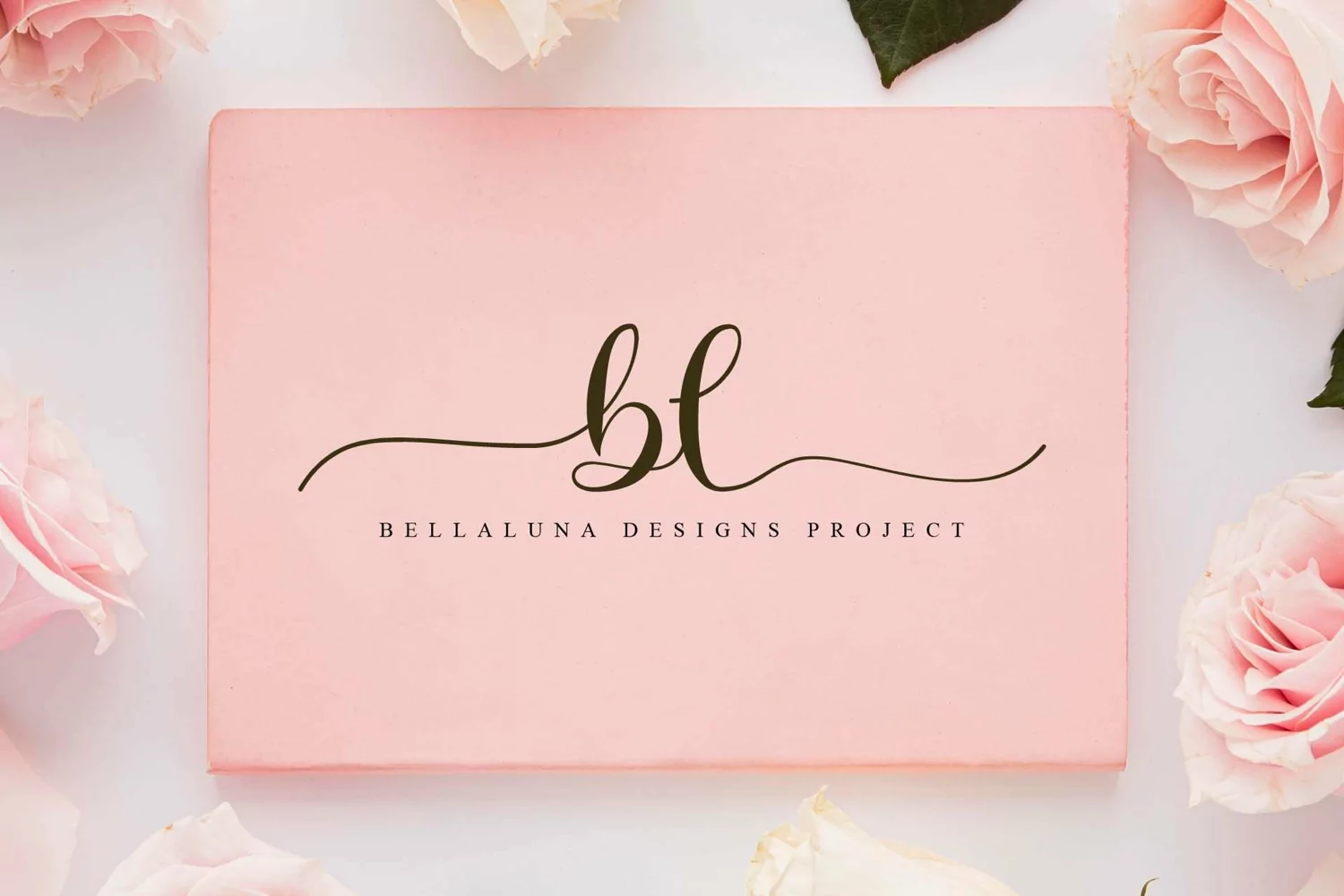
Proudly present a sweet calligraphy typeface, Bellaluna. Bellaluna is sweet, fresh, and beautiful. This font is perfect for greeting cards, branding, business cards, quotes, posters, stickers, blogs, logos, weddings, signage, packaging, birth announcements, photo overlays, wall art, quotes, printed materials, bags, t-shirts and much more. . . !